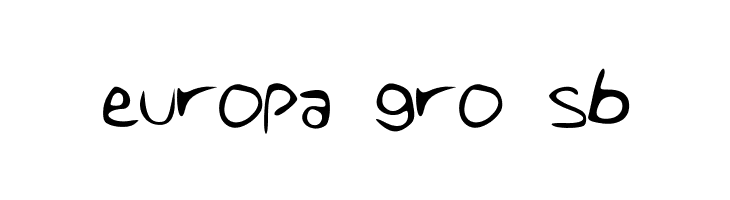
A textured, playful font with an organic, stippled appearance.
A nostalgic, handwritten font with fluid, organic characters.
A decorative font resembling tree branches with leaves, offering a natural and whimsical style.
A quirky, hand-drawn font with irregular, organic shapes.
A decorative font with characters formed by seed-like shapes, offering a playful and organic look.
A playful, bold font with organic, melting shapes.
A bold, playful font with organic, rounded shapes and exaggerated curves.
A bold, textured font with rugged, organic patterns and jagged edges.